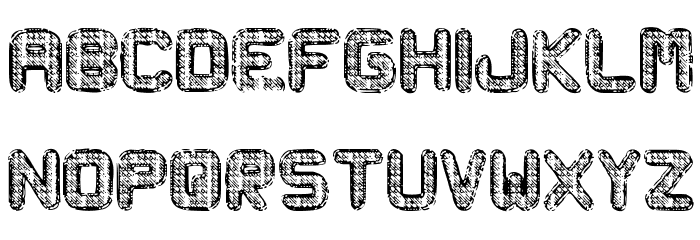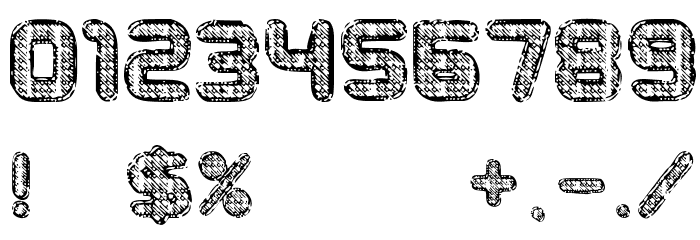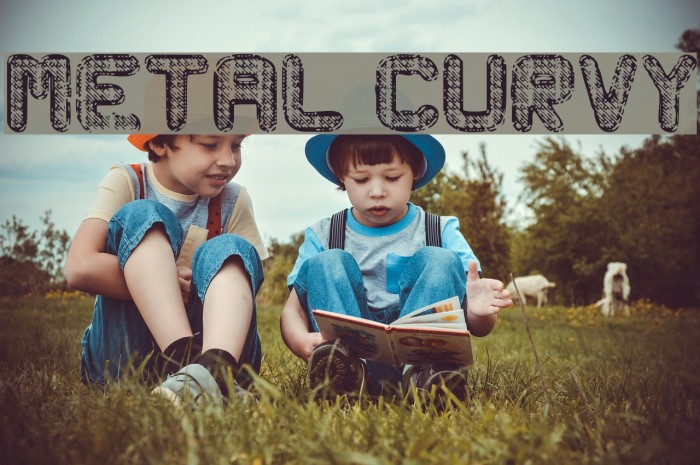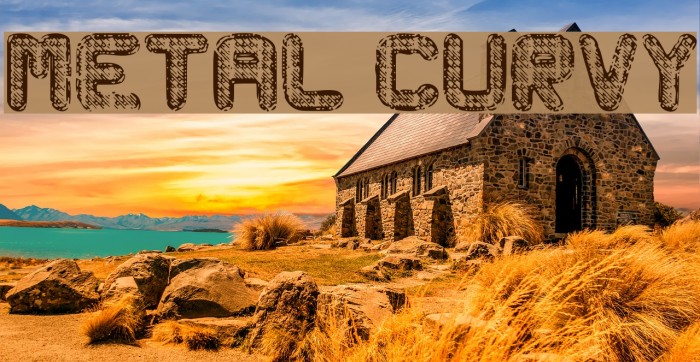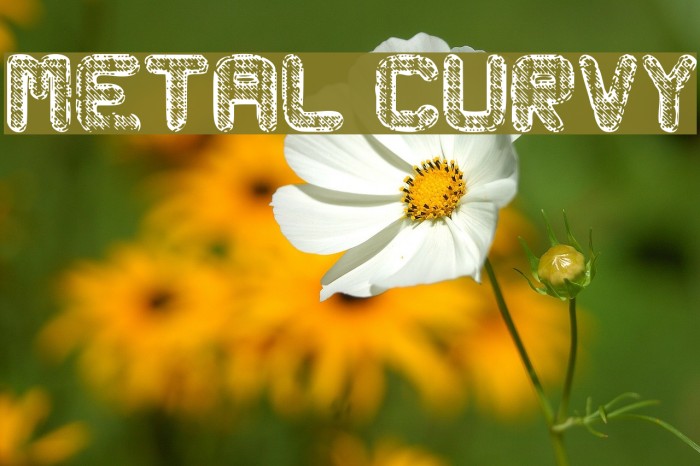
Metal Curvy Font
This font features a bold, textured design with a metallic, curvy appearance. Each character is filled with a crosshatch pattern, giving it a rugged and industrial feel. The letters are uniformly shaped with rounded edges, providing a sense of cohesion and balance. The numbers and special characters follow the same design principles, ensuring consistency across all elements. This font's unique style makes it stand out, ideal for projects that require a strong visual impact.
A bold, textured font with a metallic, curvy design and crosshatch pattern.
- Proposed Projects: Ideal for branding, posters, album covers, and any project needing a bold, industrial look.
- Overall Style: Industrial, Decorative